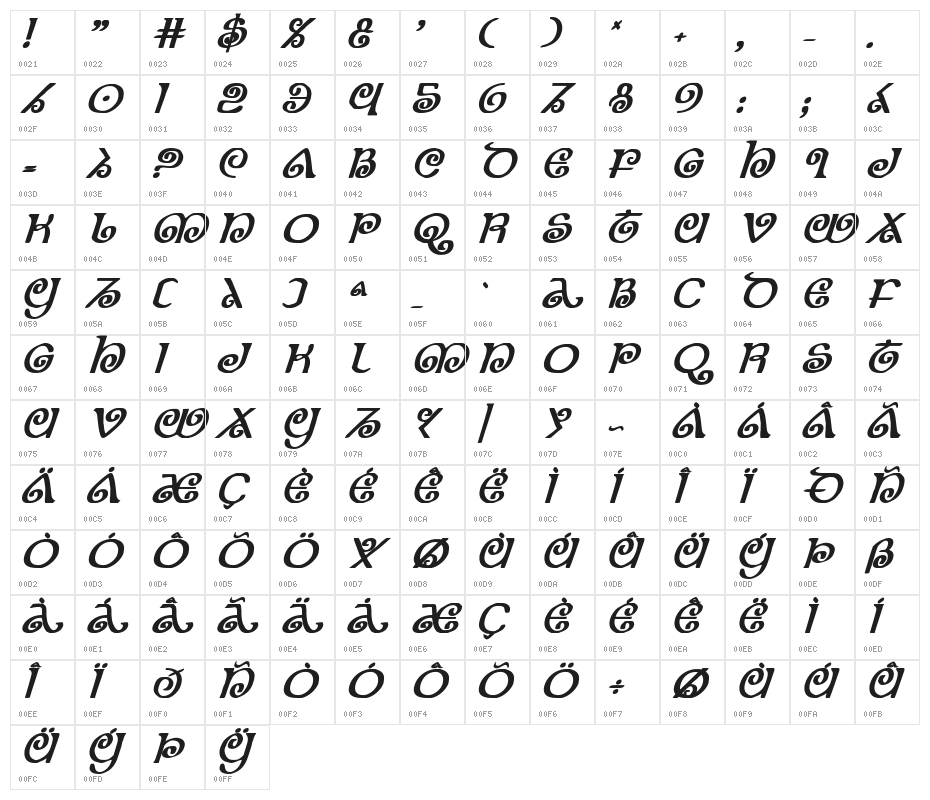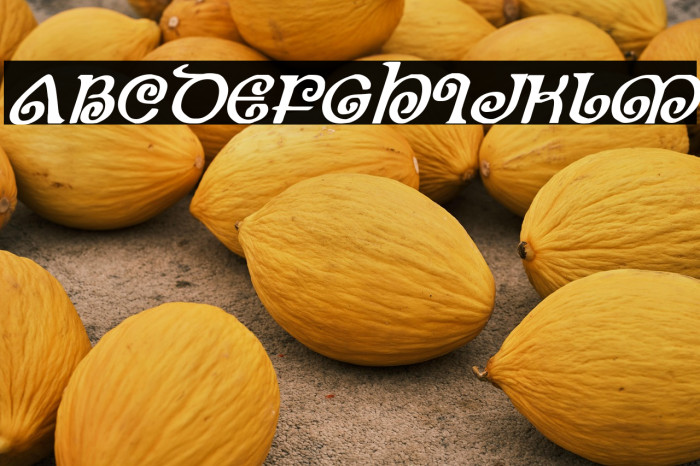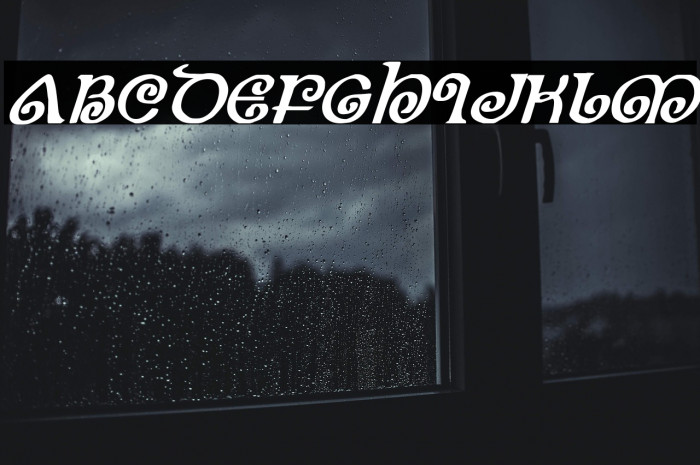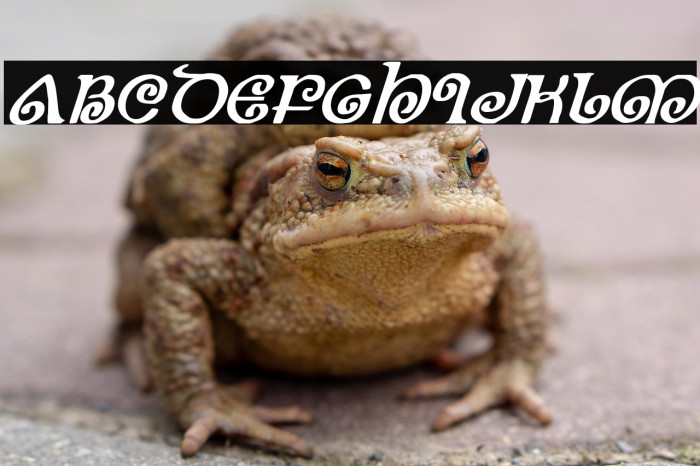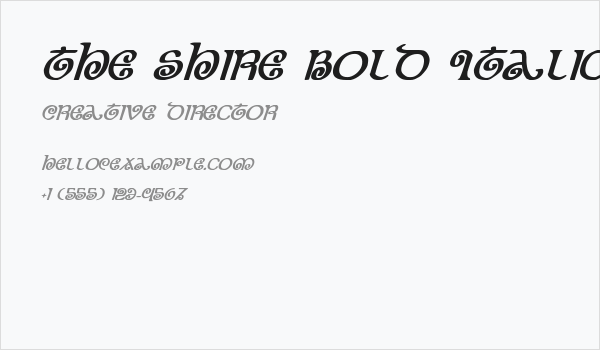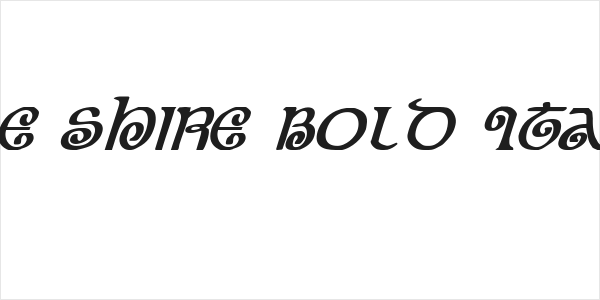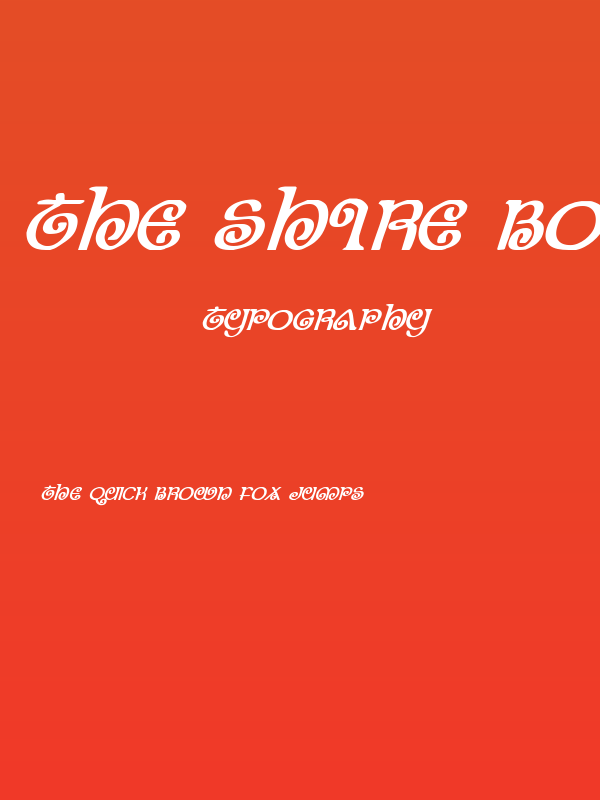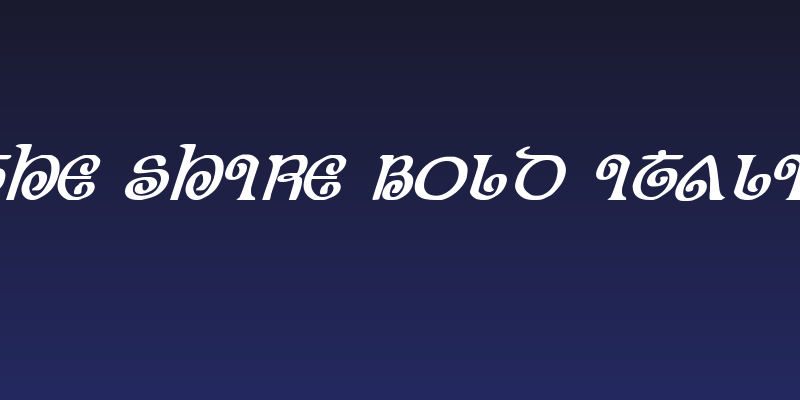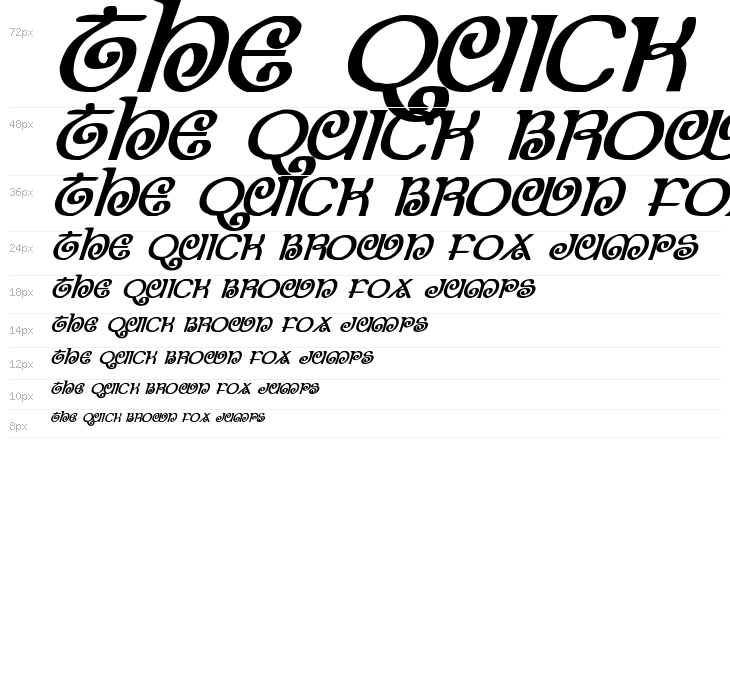
The Shire Bold Italic Font
The Shire Bold Italic Description
This font features a bold and italicized style with a distinct decorative flair. The characters are adorned with elegant swirls and curves, giving them a whimsical and ornate appearance. The uppercase and lowercase letters maintain a consistent design, with each character exhibiting unique embellishments that enhance its visual appeal. The numerals and special characters follow the same decorative theme, ensuring a cohesive look across all glyphs. This font's intricate design makes it suitable for projects that require a touch of fantasy or elegance.
| Proposed Projects | Ideal for fantasy-themed designs, book covers, invitations, and decorative signage. |